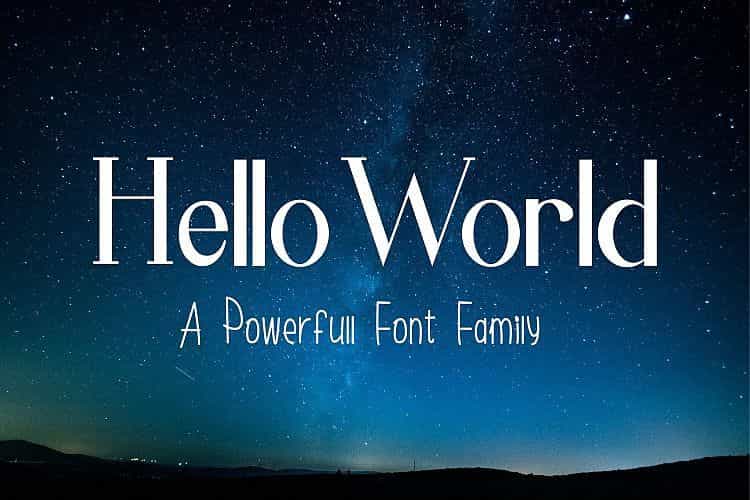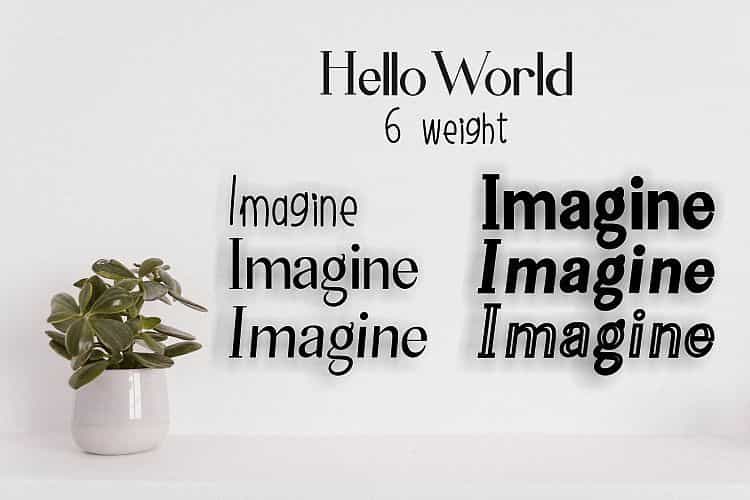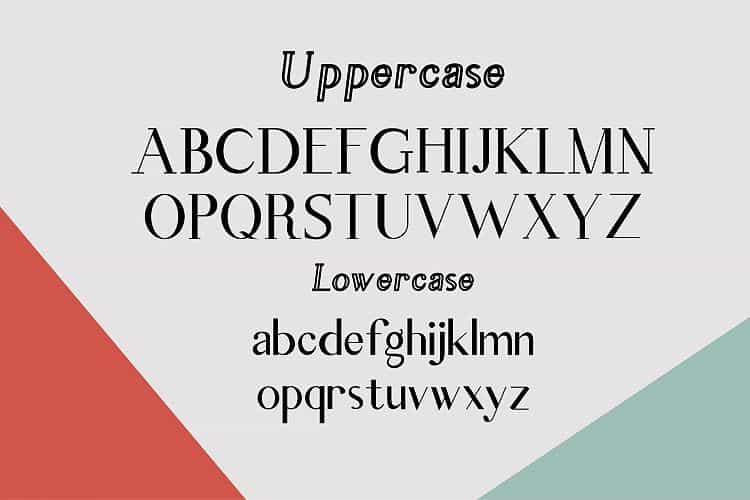
Hello World is a sans serif font family featuring elements and elegant curves. The smooth edges and sharp connections give each font letter the ability to stand alone as a title, caption or headline while also being dynamic when paired with others.